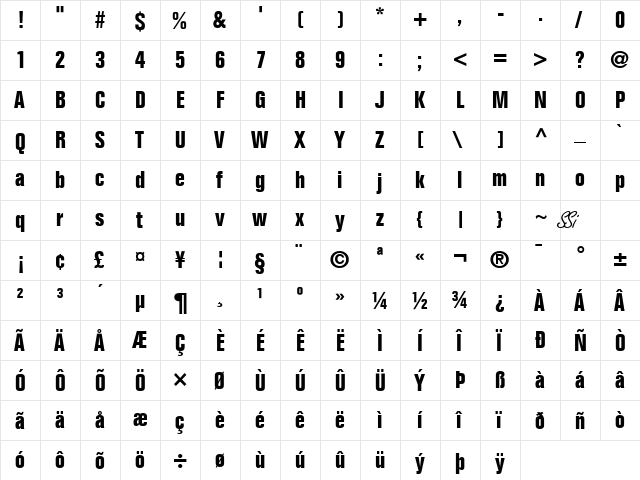
Layout Condensed SSi Bold Condensed Font Preview
Design Context for Layout Condensed SSi Typeface
Layout Condensed SSi takes a measured approach to typography — its balanced proportions and neutral character make it a reliable workhorse for both digital and print work. The heavy weight commands attention and anchors typographic hierarchies. The condensed width makes it efficient for tight spaces without sacrificing legibility.